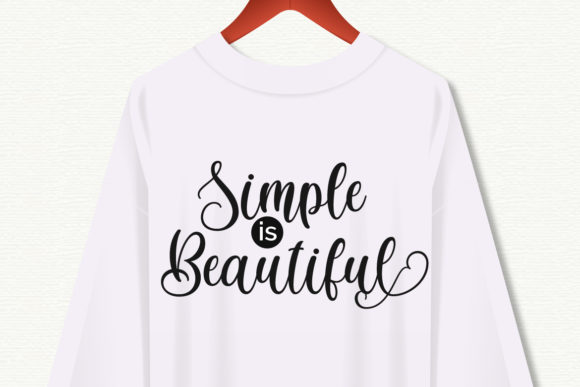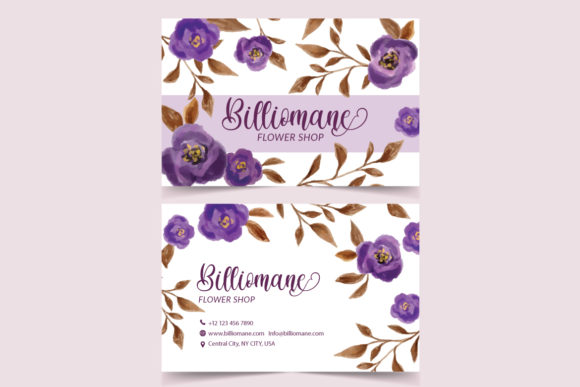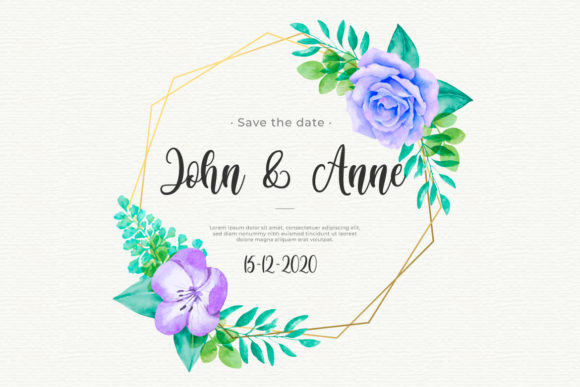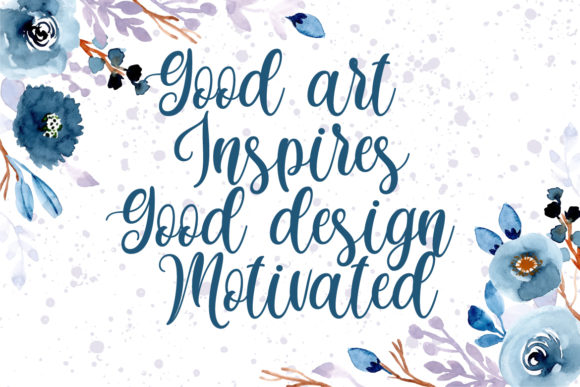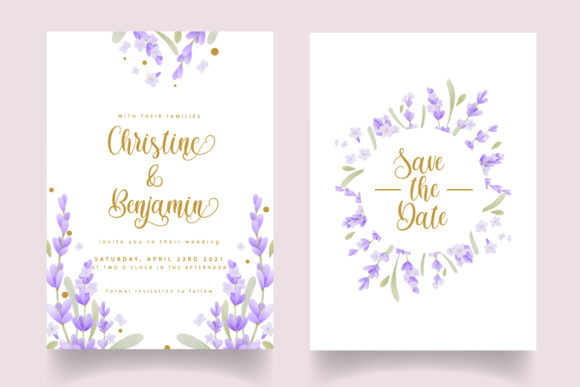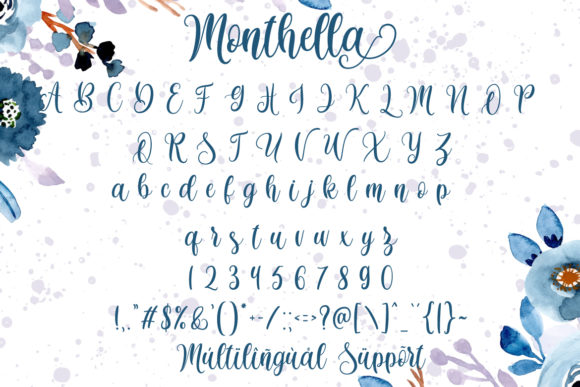
Introduction to Monthella Font
Monthella is an incredibly distinct, delicate and timeless handwritten font.
Key Features of Monthella Font
Why Choose Monthella Font?
Monthella Font offers exceptional quality and versatility, making it a valuable addition to your design toolkit. Whether you’re creating for personal projects or commercial use, Monthella Font delivers professional results.